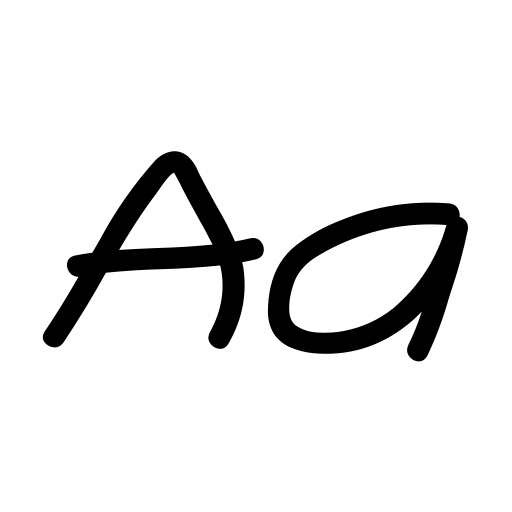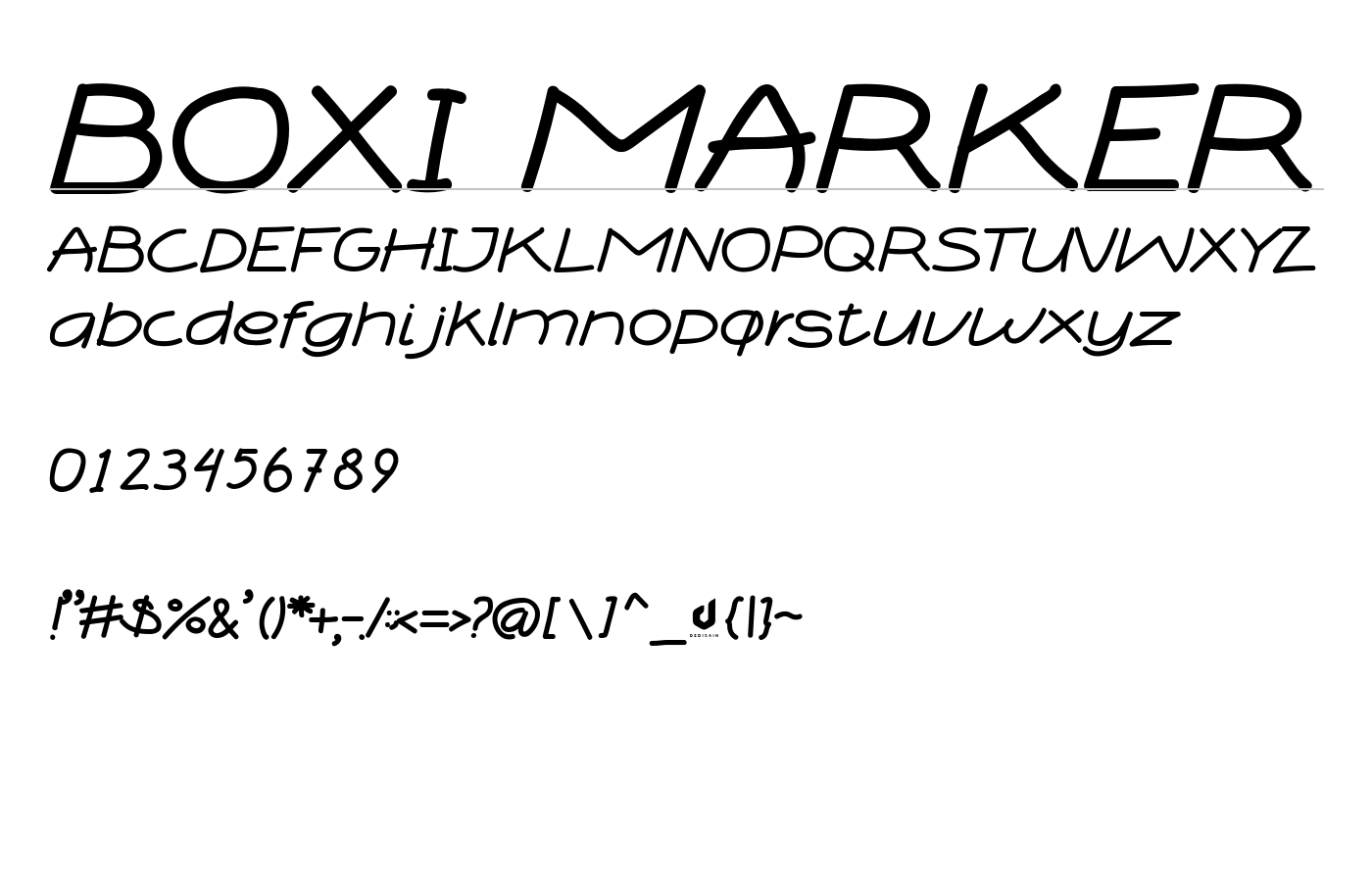
BOXI MARKER is a casual, playful sans serif font that mimics the look of hand-drawn marker writing. With its slightly slanted, rounded letterforms and varied stroke widths, it feels approachable and energetic, perfect for informal and creative designs. This font works well in branding, social media graphics, and children’s materials where a friendly, personalized touch is desired.
BOXI MARKER Font
About BOXI MARKER Font